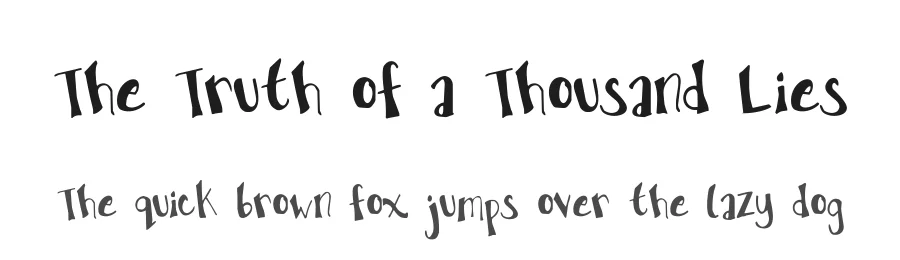
About Bright Chalk Font
Bright Chalk is a distinctive and playful font that captures the essence of chalk lettering. This rough, organic typeface features unique letterforms that evoke a sense of creativity and artistry. The irregular lines and uneven edges give the font a hand-drawn feel that is perfect for adding personality to your designs. Whether youΒre creating a poster, logo, or social media graphic, Bright Chalk is sure to make a bold statement. With its eye-catching aesthetic and versatile design, this font is a must-have for any designer looking to add a touch of whimsy to their work.
Bright Chalk Font is a script font that shines as a display or heading face. Pair it with a clean sans-serif or serif font for body text β the contrast creates a clear hierarchy while the two styles stay balanced and easy to read.